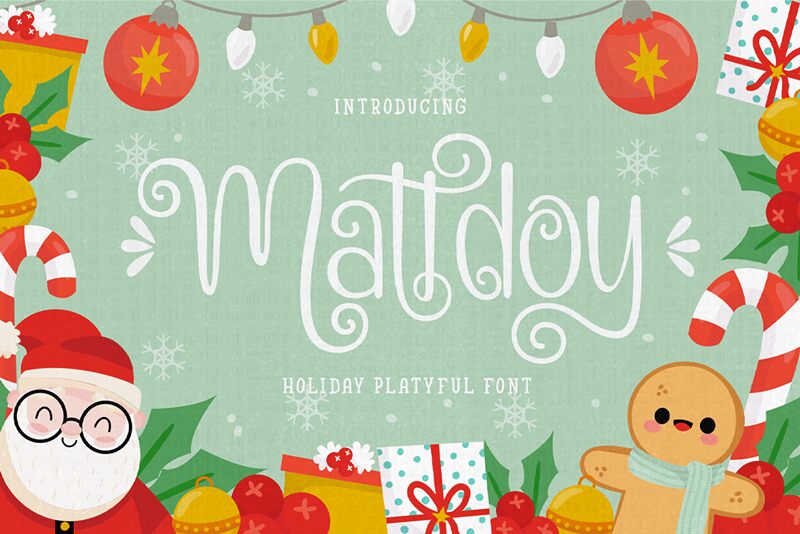
Mattdoy, the curly script font designed by Alit Design, is a perfect fit for projects that demand a playful and whimsical touch. With its semi-light weight and semi-condensed width, this display font adds a touch of elegance and sophistication to any design. Whether you're creating invitations, greeting cards or branding materials for a children's store or an art studio, Mattdoy will add personality and charm to your project. Its curly script style brings out the quirky side of your design while its semi-light weight makes it easy to read on screens and in print. Make your next project stand out with Mattdoy!
Mattdoy